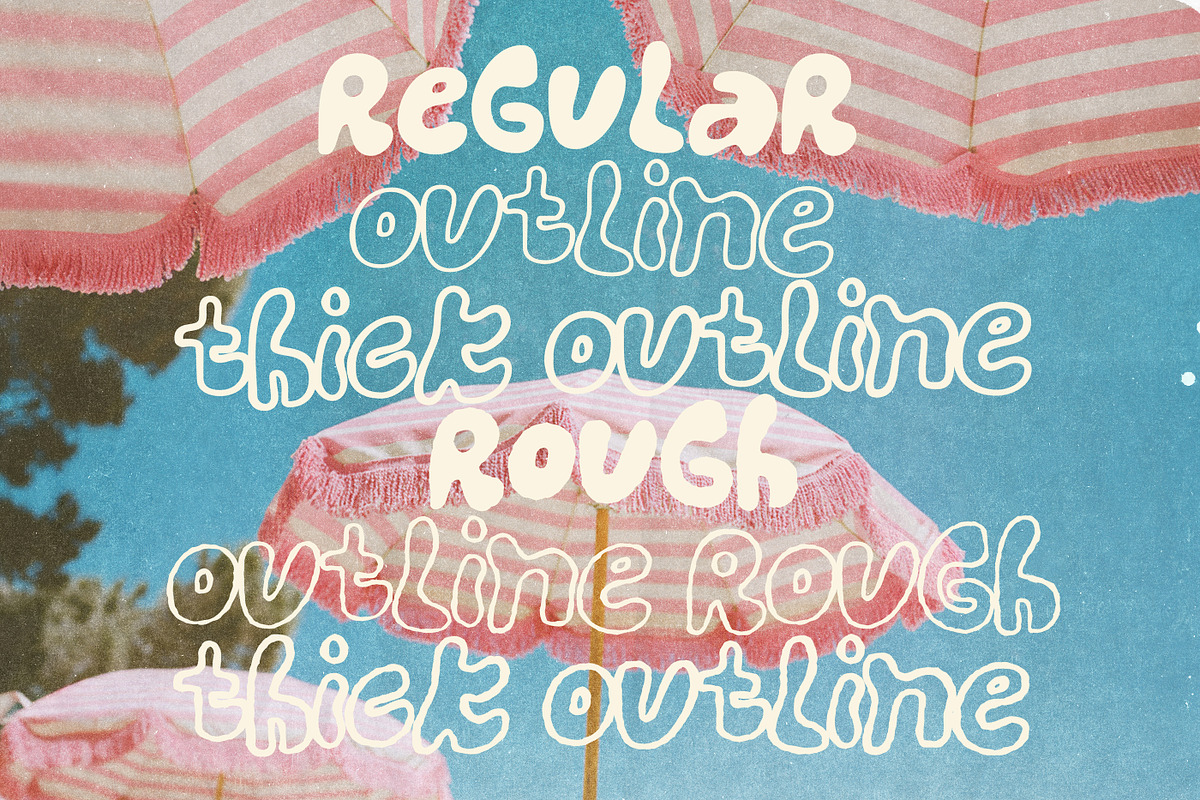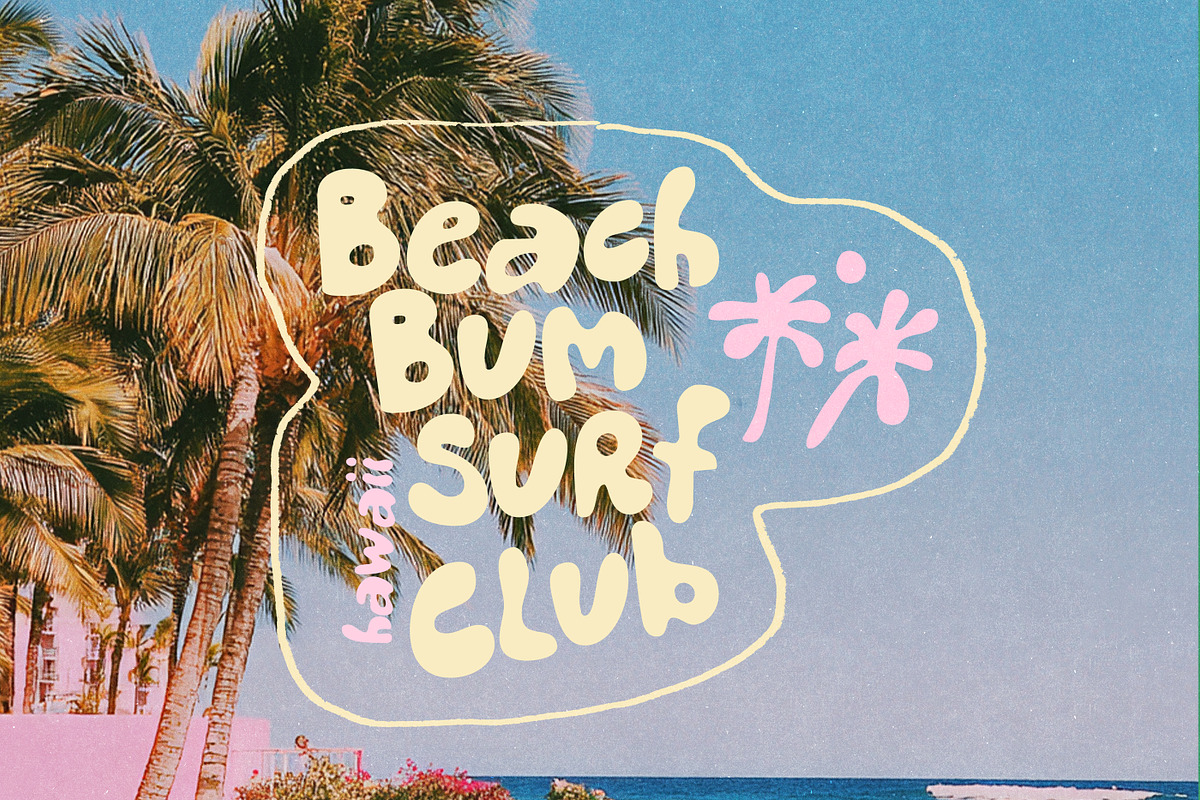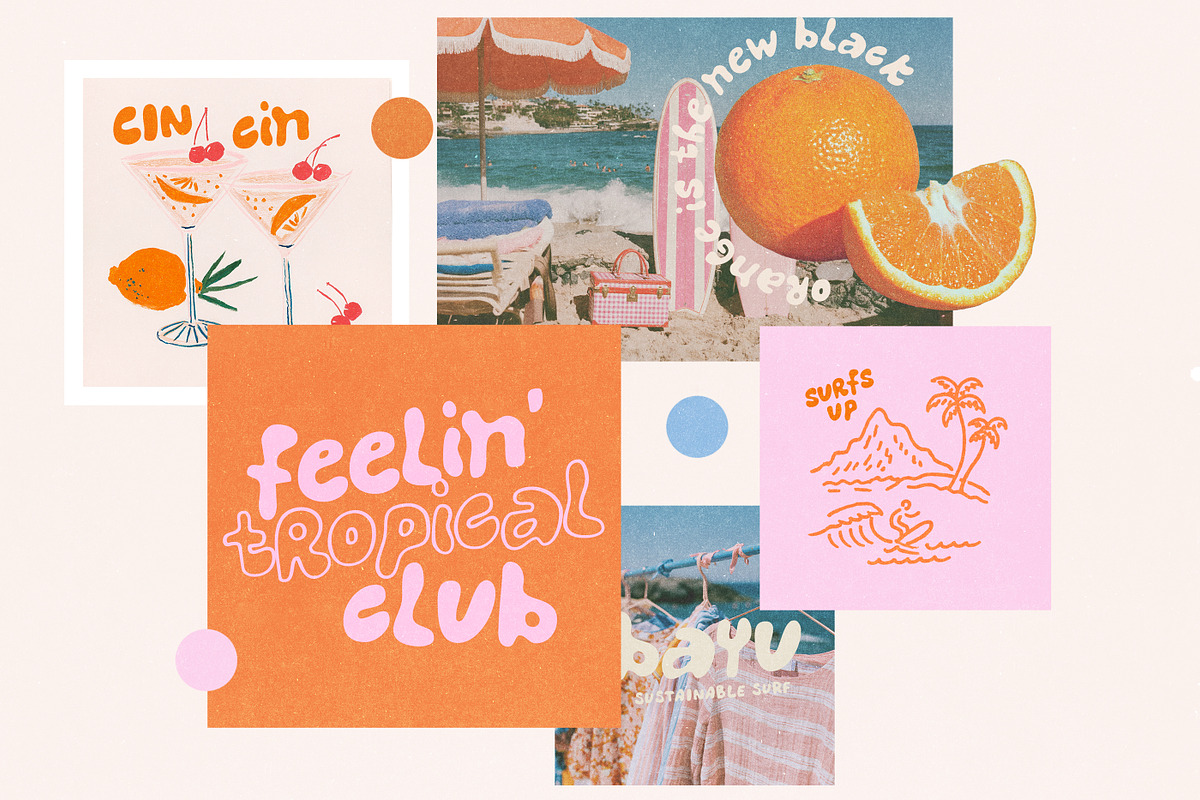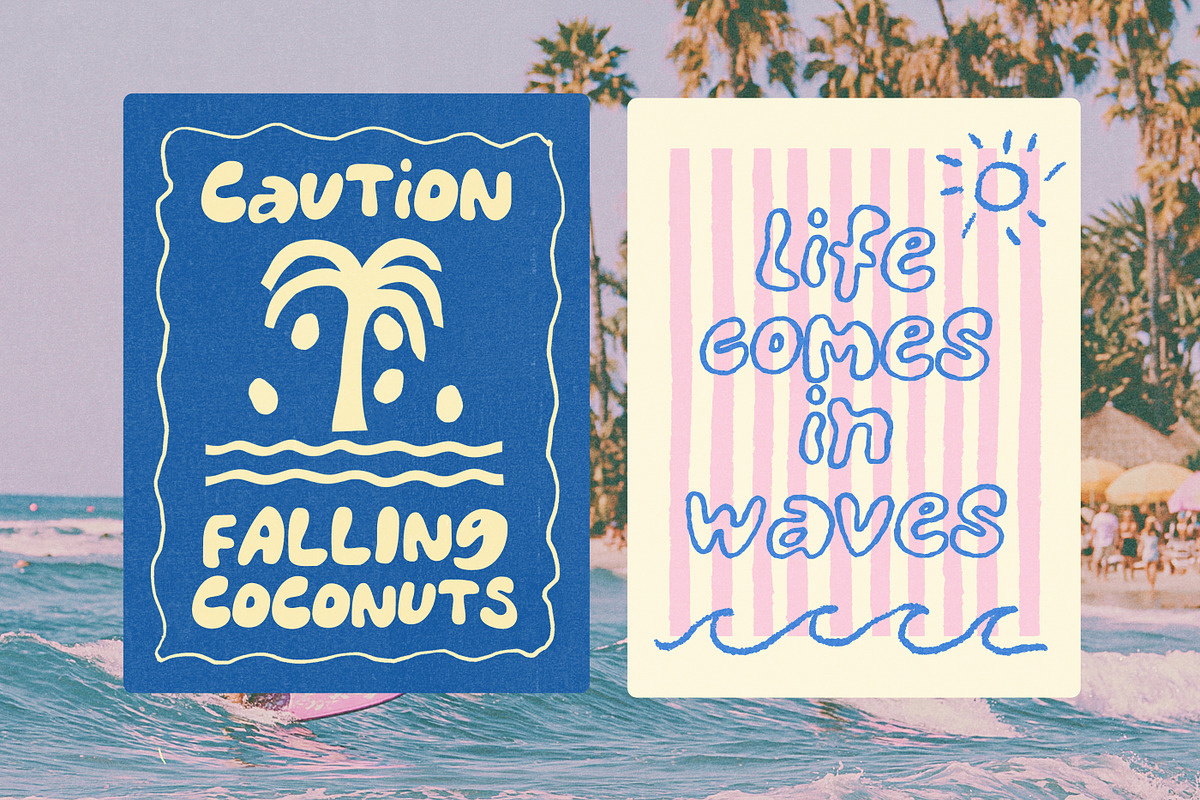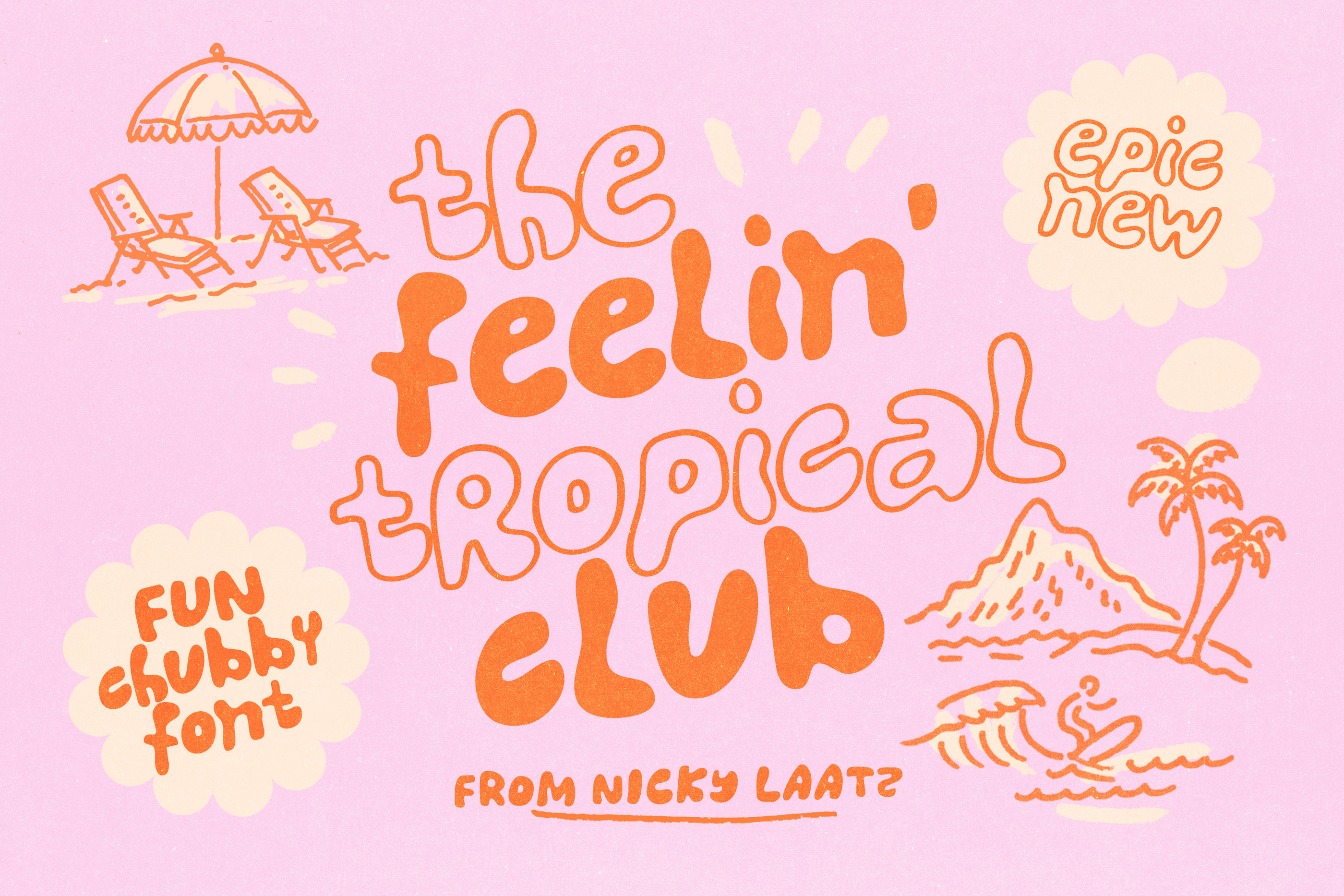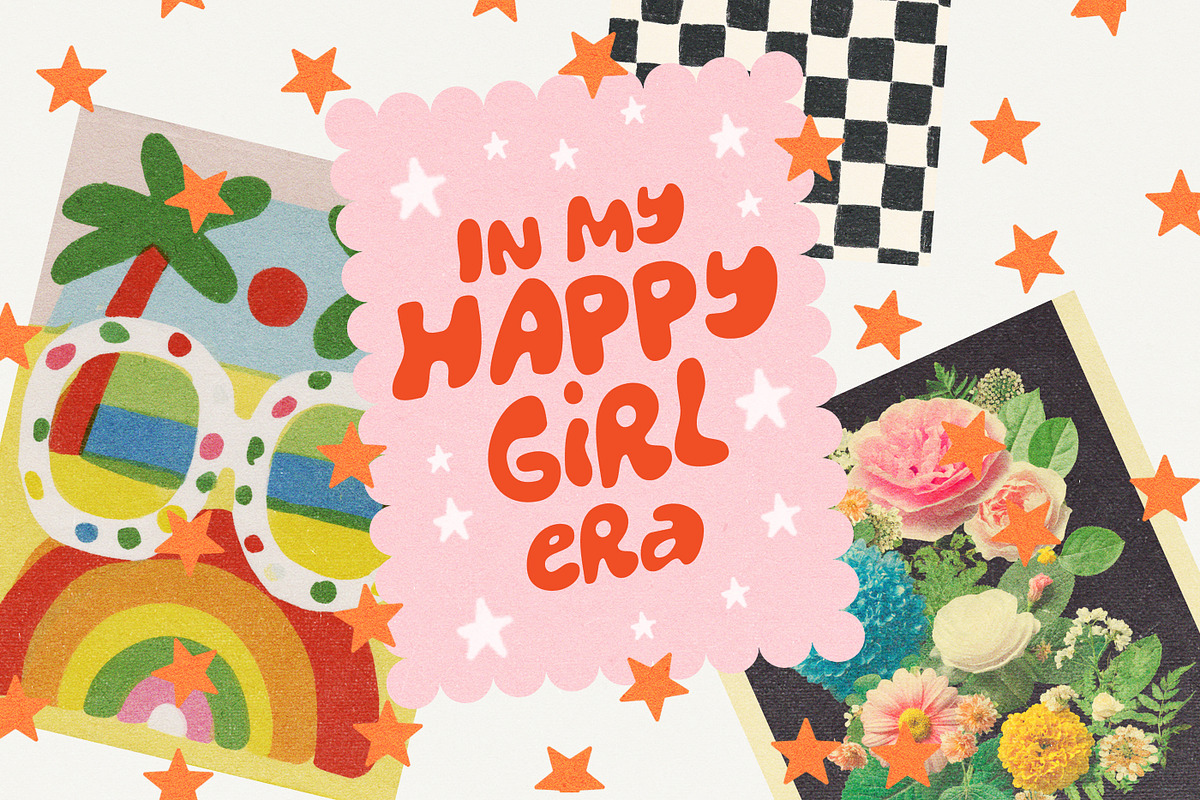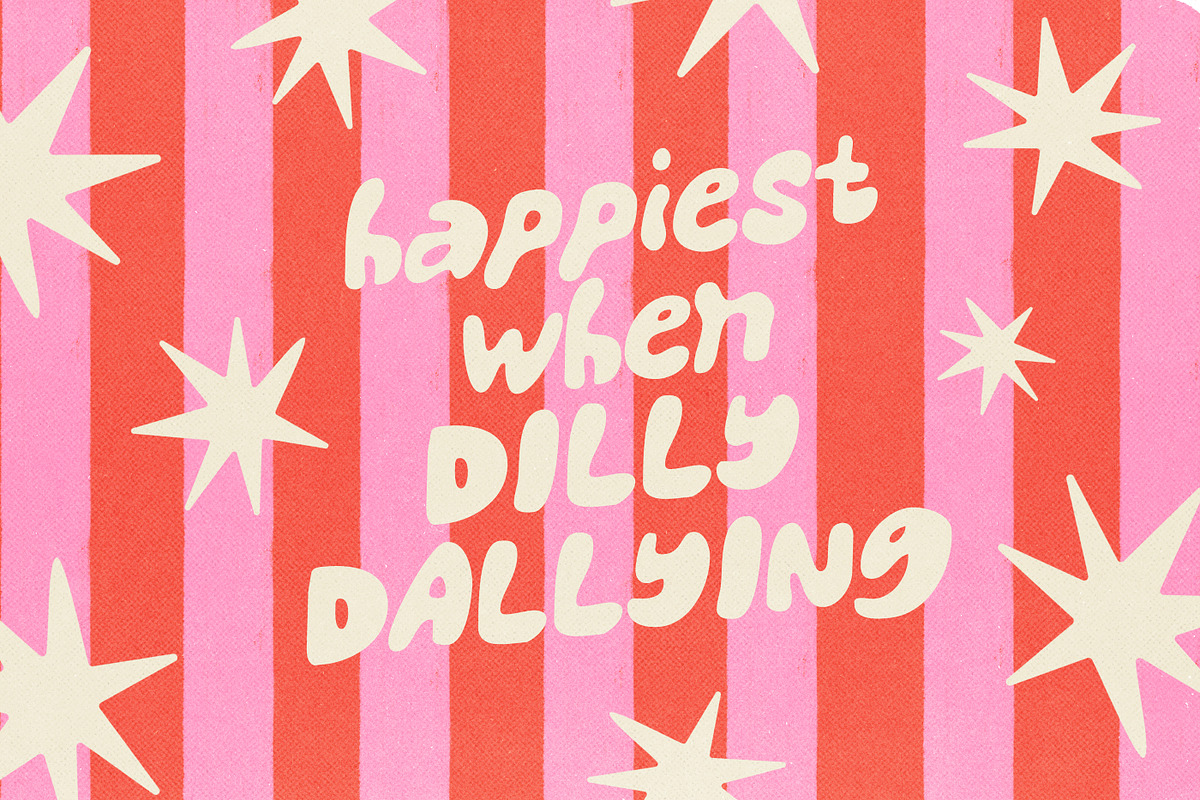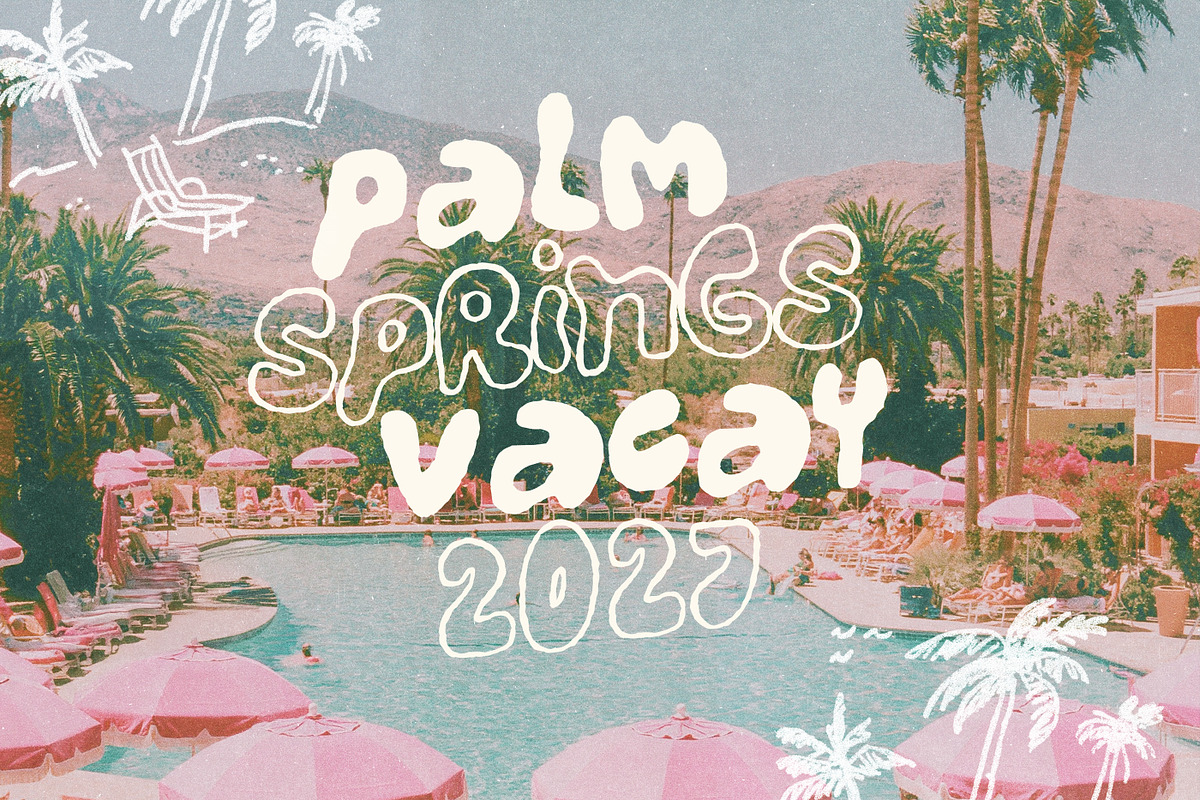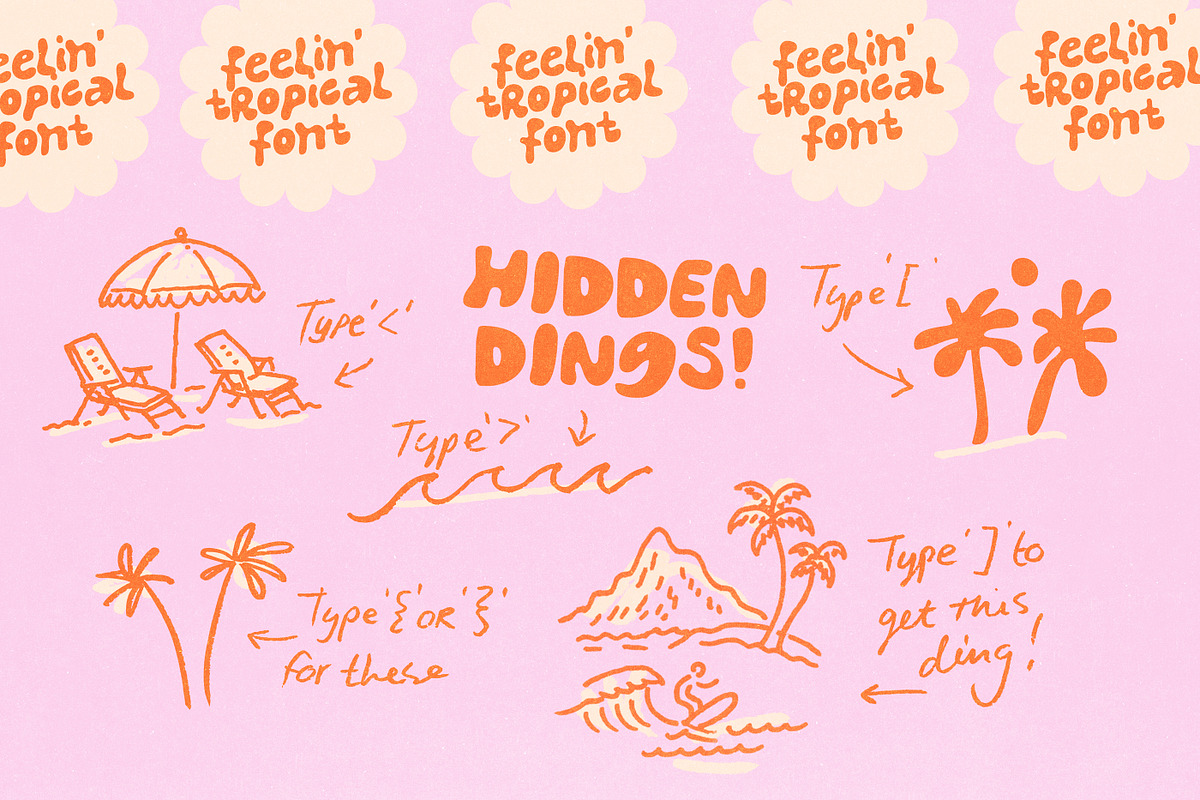
Feelin Tropical Font Set
Say hello to **The Feelin’ Tropical Font **Set!
A playful bubbly hand drawn display typeface that shows up with a beach towel, fruity drink, and absolutely no plans :)
Inspired by fun retro surf culture, topical cocktails on the beach, and the smell of sticky coconutty suncream :)
Chunky bubbly letterforms make up the upper and lowercase mixed caps font. You get 6 Styles : Regular( smooth) , Outline, Thick Outline, and Rough versions of each.